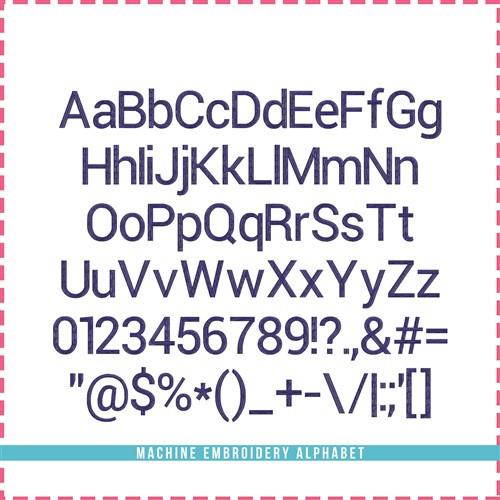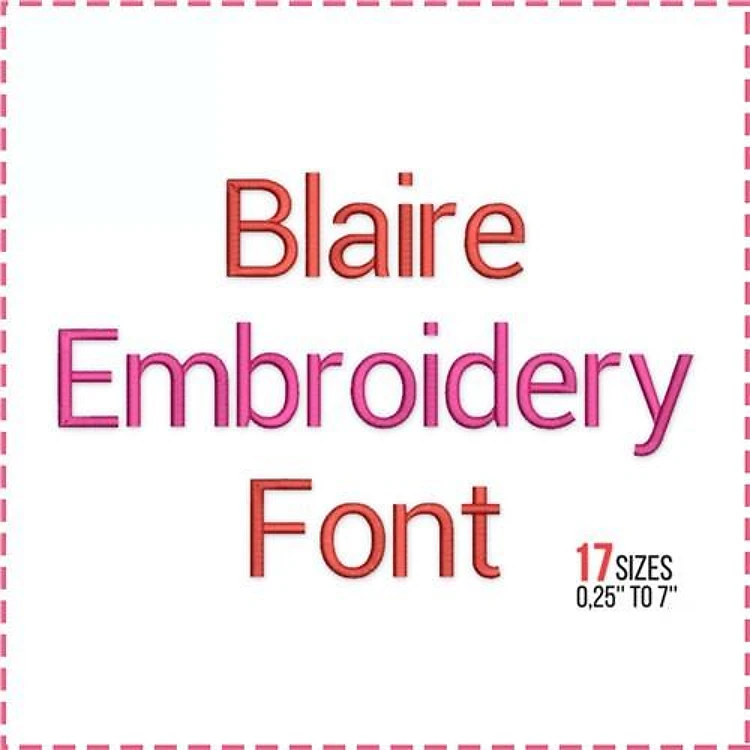
Maya Kreations is happy to present Blaire Font Embroidery Font - Bold Playful Letters - 17 Sizes 0.25" TO 7" - PES, DST & 8 formats machine embroidery font which has Bold and playful, the Blaire embroidery font is perfect for vibrant designs on pillowcases and tote bags. Available in PES, DST, and several other formats, this machine embroidery font offers versatile size options ranging from 0.25 to 7. included. If you would like to view more embroidery fonts and alphabets please search our embroidery fonts page.